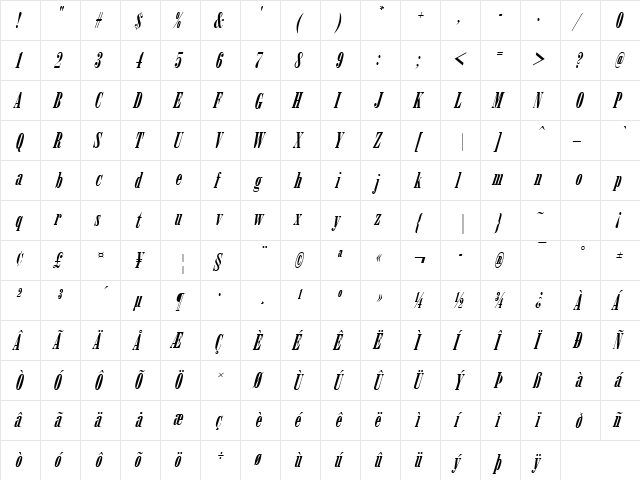
ArsisDReg Italic
Design Context for ArsisDReg Typeface
ArsisDReg offers clean, dependable letterforms without strong stylistic allegiance, making it a practical choice for designers who need flexibility. The slanted form adds forward momentum and visual energy.
Pro Tip: Use ArsisDReg for emphasis, pull quotes, and subheadings where its slanted energy can add rhythm to the layout.